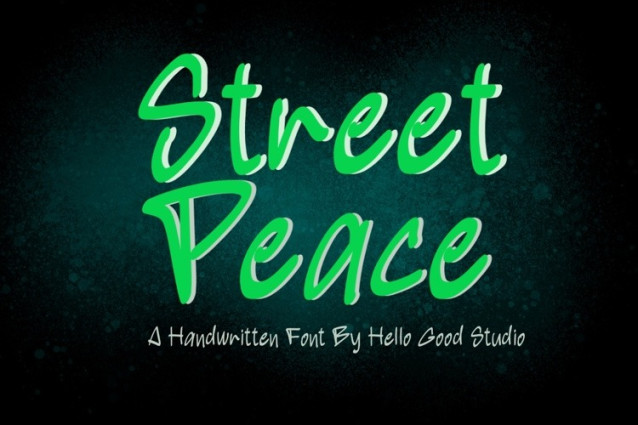
Street Peace Font
Street Peace Font a sweet and friendly handwritten font. Cute and fun, this font is ideal for writing wedding invitations, cards, or any other design that might need a fun touch!